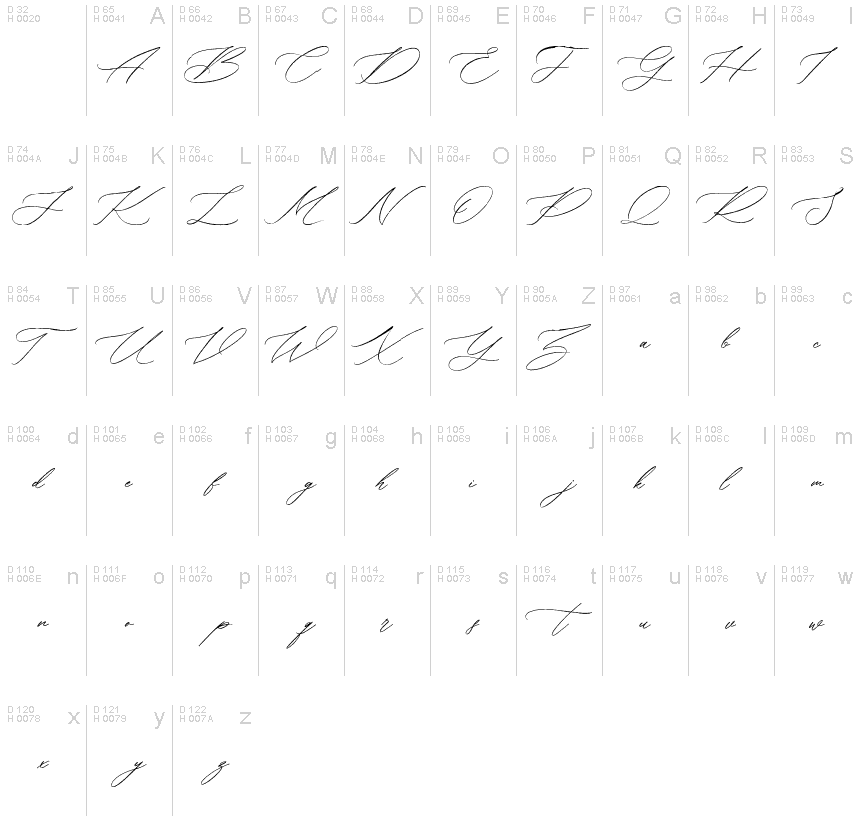
Bellychestor Free Regular
Bellychestor is a stunning extra-light handwritten font designed by Maulana Creative. With its quirky letterforms and unique style, this font is perfect for a range of creative projects. Use it to add a playful touch to your branding materials or bring a touch of whimsy to your website design. The delicate strokes and flowing curves make Bellychestor the ideal choice for wedding invitations, greeting cards, and other special occasion designs. Whether you're looking for a font that's fun and lighthearted or one that's elegant and sophisticated, Bellychestor has got you covered with its versatile style!